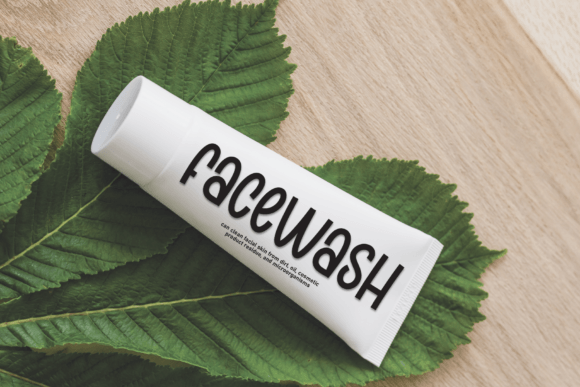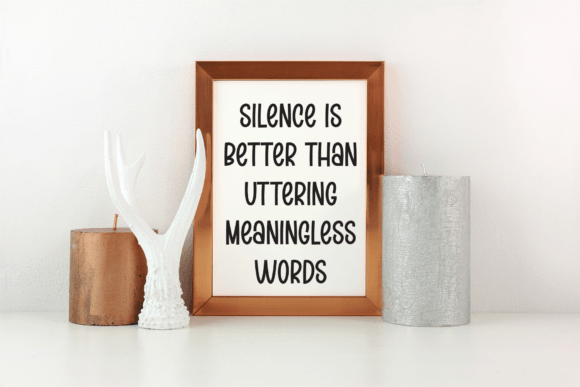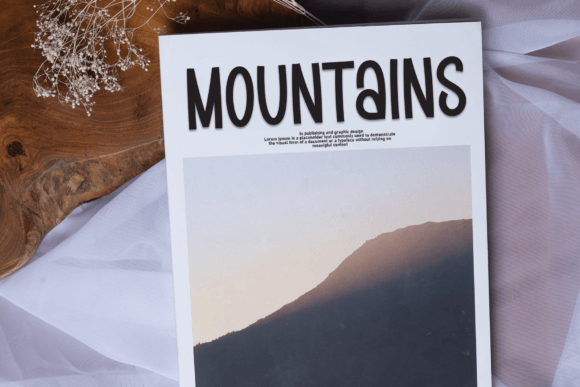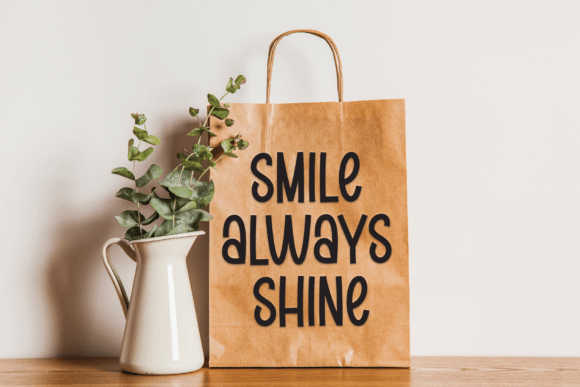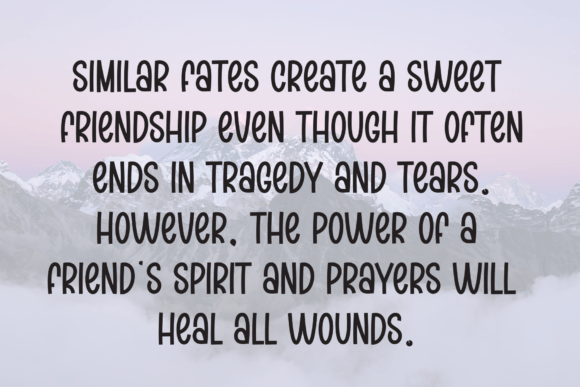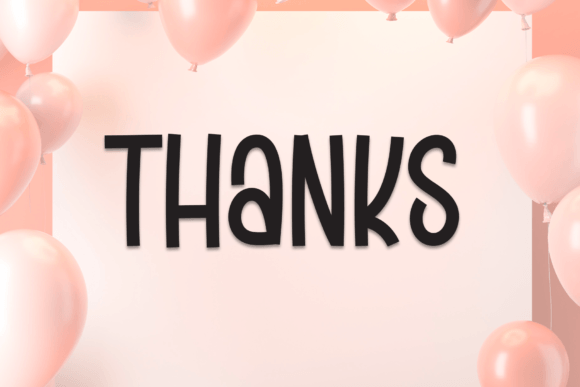
Introducing Ballons Font: The Sweet and Friendly Handwritten Font for Your Creative Projects
Are you a designer, crafter, or DIY enthusiast looking for a font that can add a touch of sweetness and friendliness to your projects? Look no further than Ballons Font! This beautiful handwritten font is perfect for a wide range of designs, from party invitations and greeting cards to branding and packaging. In this article, we’ll take a closer look at Ballons Font, its unique features, and how you can use it to bring your creative projects to life.
What is Ballons Font?
Ballons Font is a sweet and friendly handwritten font that is designed to add a personal touch to your designs. Its natural and unique style makes it incredibly fitting to a large pool of designs, from playful and whimsical to elegant and sophisticated. The font is perfect for anyone who wants to add a bit of personality to their projects, whether it’s a DIY craft, a handmade product, or a professional design.
Unique Features of Ballons Font
So, what makes Ballons Font so special? Here are just a few of its unique features:
- Handwritten style: Ballons Font is a handwritten font, which means it has a personal and organic feel that’s perfect for adding a touch of warmth and personality to your designs.
- Natural and unique: The font has a natural and unique style that’s unlike anything else out there. Its imperfections and quirks make it feel more human and relatable.
- Versatile: Ballons Font is incredibly versatile, making it suitable for a wide range of designs and projects. Whether you’re creating a party invitation, a branding campaign, or a handmade product, this font is sure to fit the bill.
How to Use Ballons Font in Your Designs
Now that we’ve covered the basics of Ballons Font, let’s talk about how you can use it in your designs. Here are a few ideas to get you started:
- Party invitations: Ballons Font is perfect for creating playful and fun party invitations. Use it to create custom invites for birthdays, baby showers, and other celebrations.
- Greeting cards: The font is also great for creating handmade greeting cards. Add a personal touch to your cards with Ballons Font and make them extra special.
- Branding and packaging: If you’re a business owner or designer, you can use Ballons Font to create custom branding and packaging materials. The font is perfect for adding a touch of personality to your brand.
- DIY crafts: Ballons Font is also great for DIY crafters. Use it to create custom labels, tags, and other embellishments for your crafts.
Tips for Getting the Most Out of Ballons Font
Here are a few tips for getting the most out of Ballons Font:
- Experiment with different colors: Ballons Font looks great in a variety of colors, so don’t be afraid to experiment and find the perfect hue for your design.
- Mix and match with other fonts: The font pairs well with other fonts, so feel free to mix and match it with other fonts to create a unique look.
- Use it in combination with images: Ballons Font looks great in combination with images, so consider using it to add text to your photos or illustrations.
In conclusion, Ballons Font is a sweet and friendly handwritten font that’s perfect for adding a touch of personality to your designs. Its natural and unique style makes it incredibly versatile, and it’s suitable for a wide range of projects and designs. Whether you’re a designer, crafter, or DIY enthusiast, Ballons Font is sure to become a favorite in your toolkit. So why wait? Download Ballons Font today and start creating beautiful, one-of-a-kind designs that will leave a lasting impression!